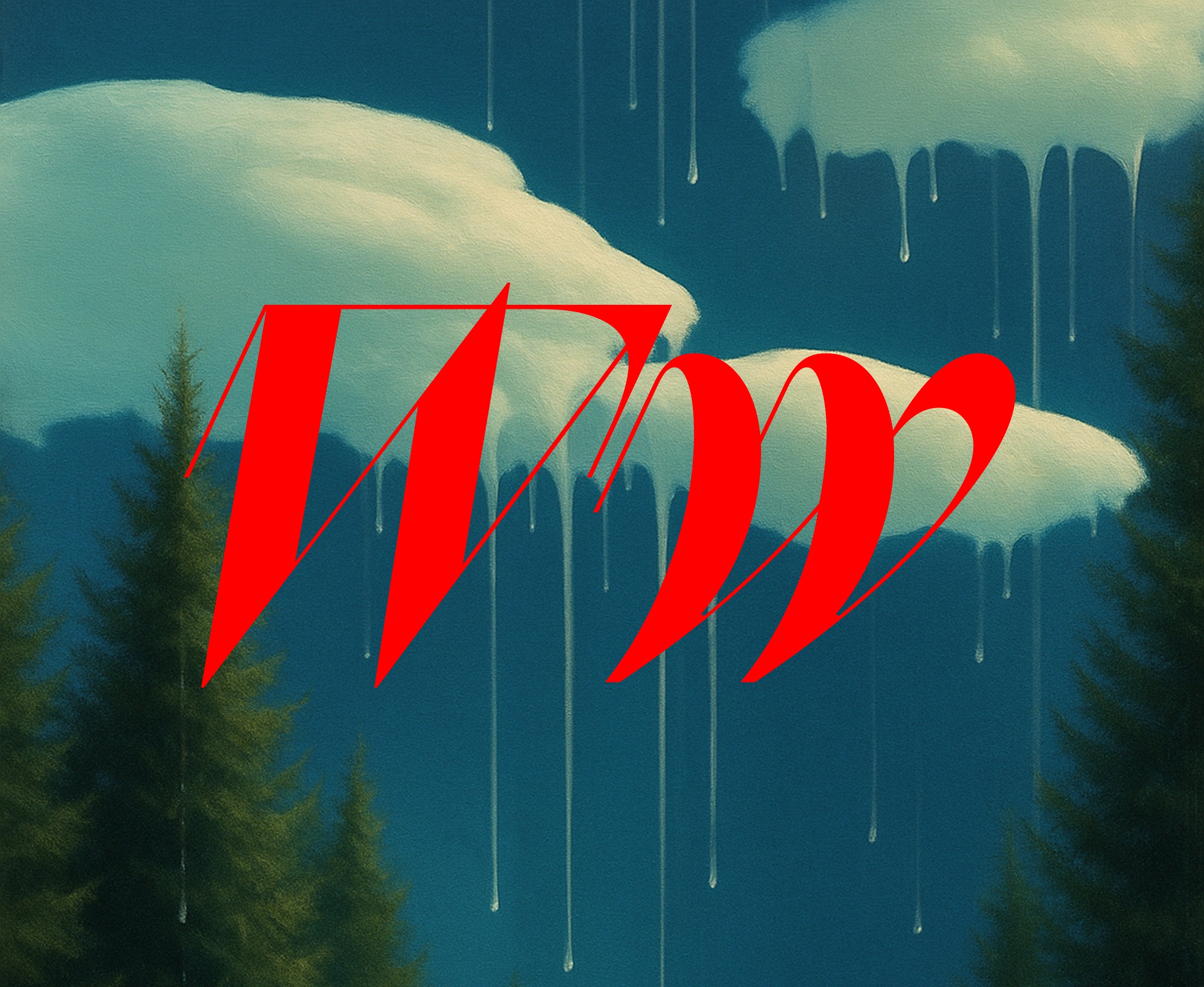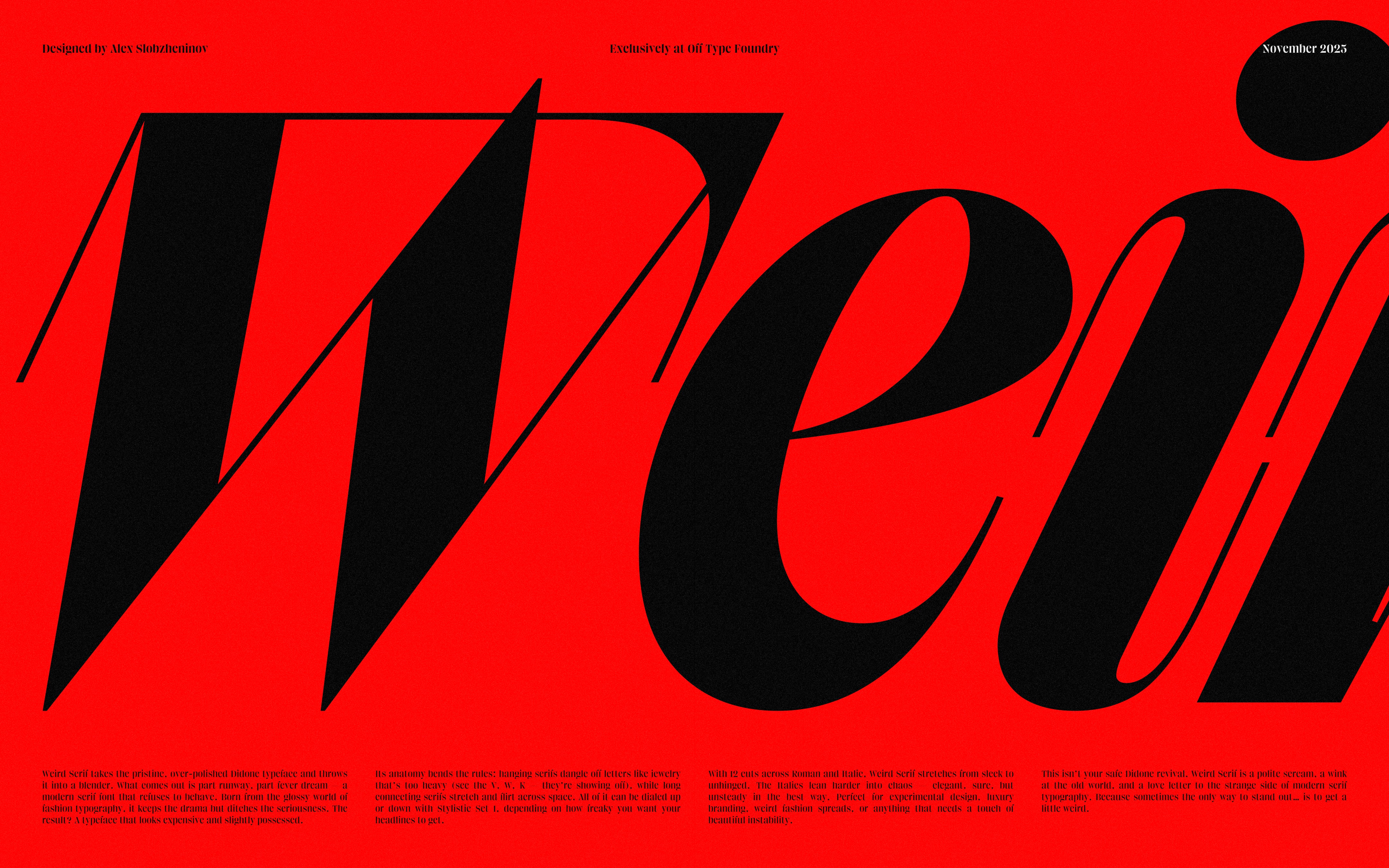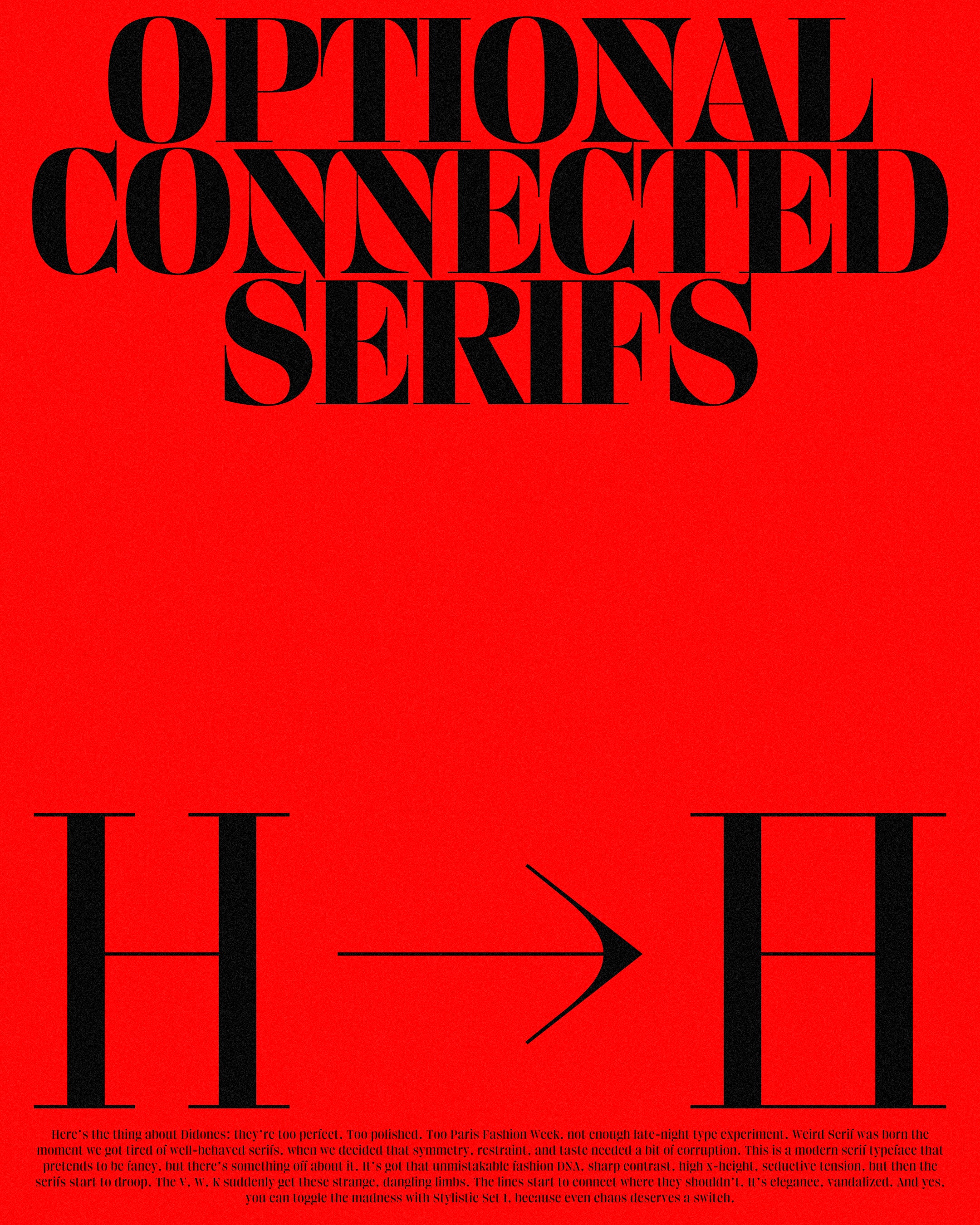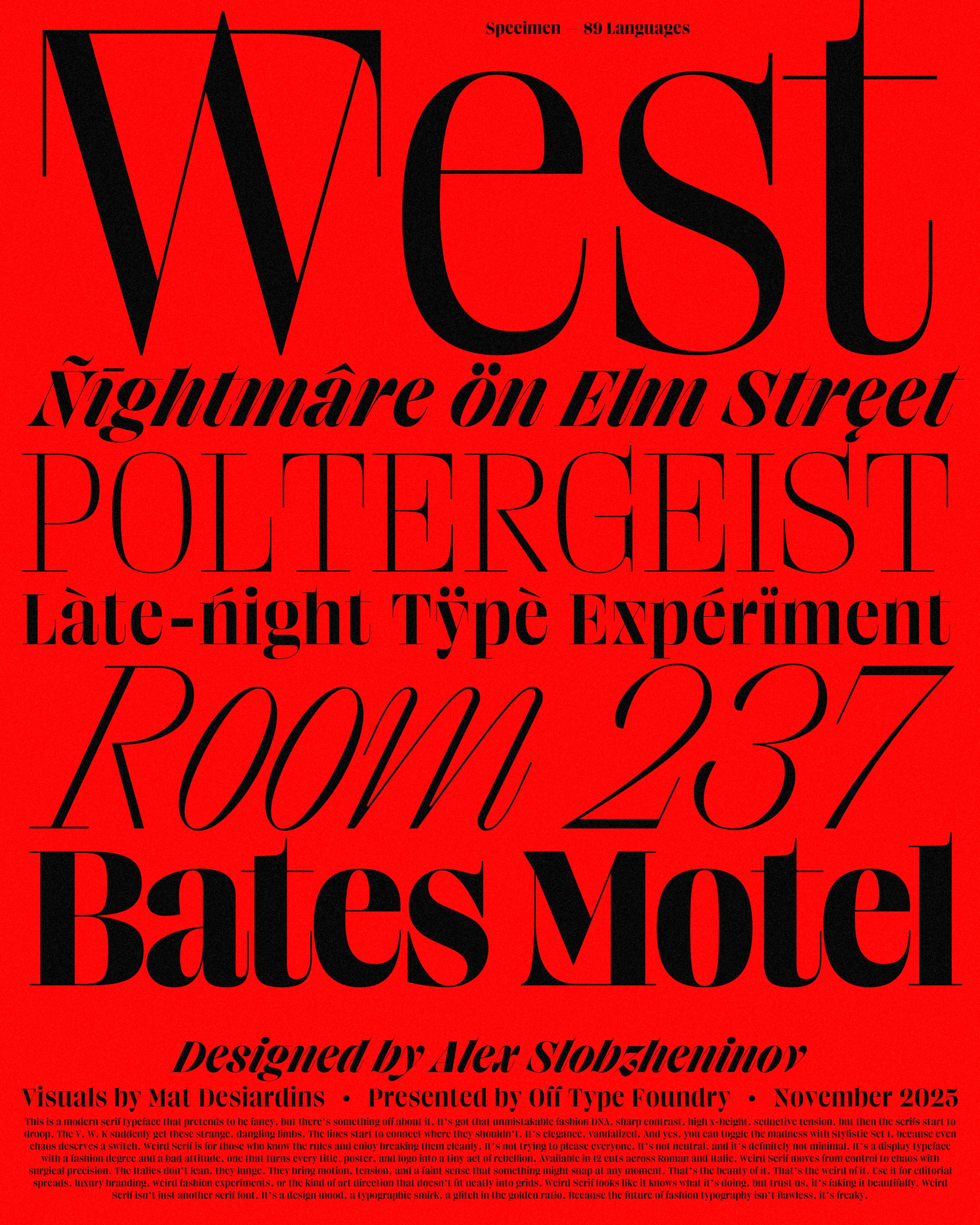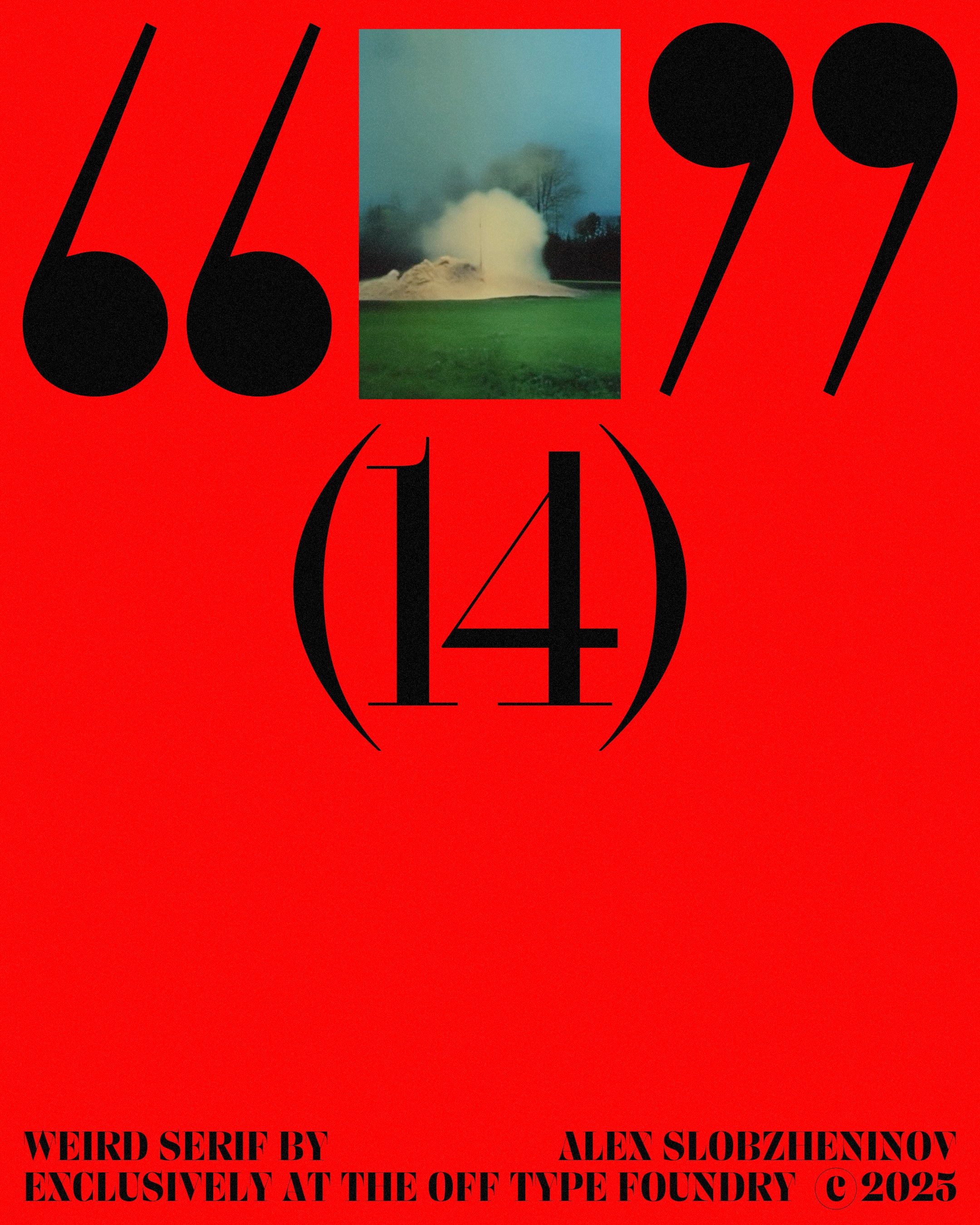
Weird Serif takes the pristine, over-polished Didone typeface and throws it into a blender.
Weird Serif
Weird Serif is a freaky take on the fancy Didone typefaces commonly used in the fashion industry. The solemnity of that genre is jazzed up with weird hanging down serifs (see V, W, K and so on) and long connecting serifs, those optionally controlled with the Style Set 1. The typeface features a dramatic contrast and a punchy large x-height and comes in 12 cuts, Roman and Italic.